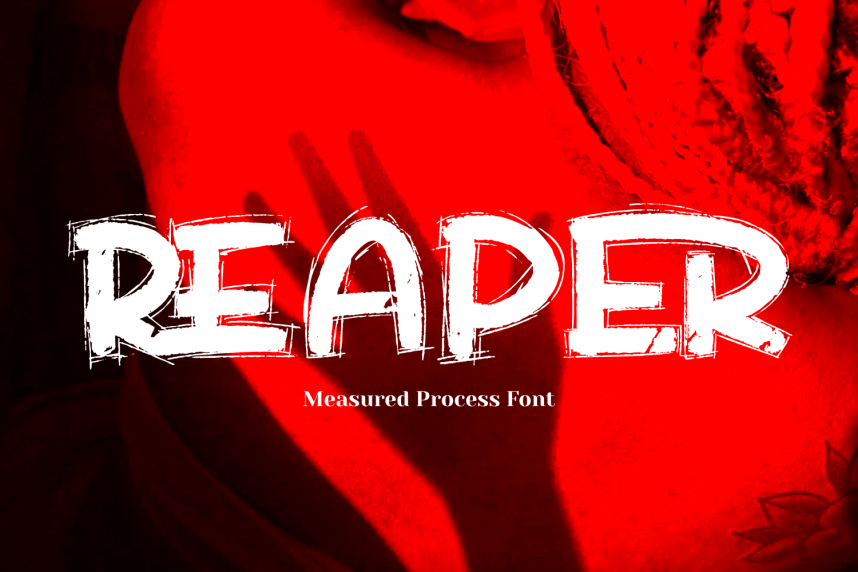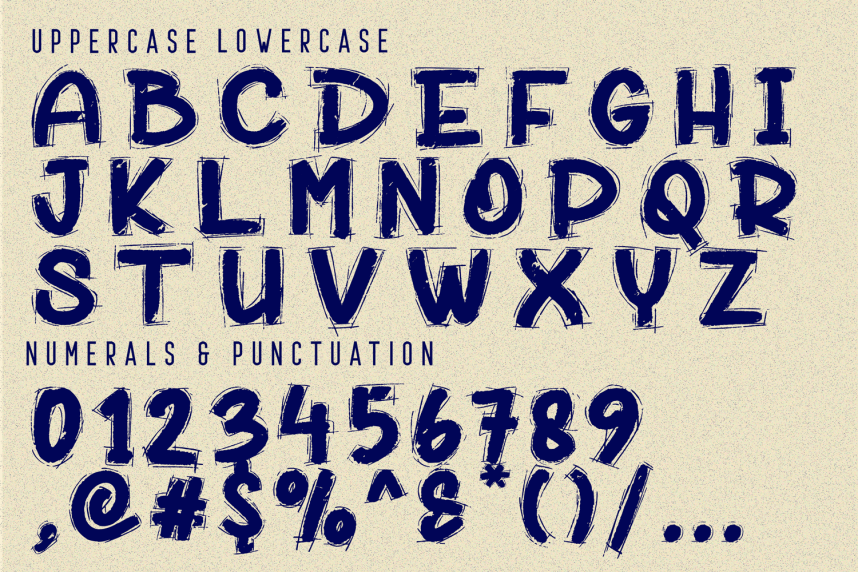
Measured Process – Graffiti Font is a bold hand-drawn graffiti display typeface inspired by urban street art and rough sketch typography. Designed with expressive hand-sketched outlines and textured edges, this font captures the raw energy and creativity of graffiti culture. The chunky letterforms combined with dynamic sketch details create a strong visual impact, making Measured Process perfect for streetwear branding, music posters, album covers, skate graphics, and urban design projects. Its playful and artistic character gives any layout an authentic hand-crafted feel.